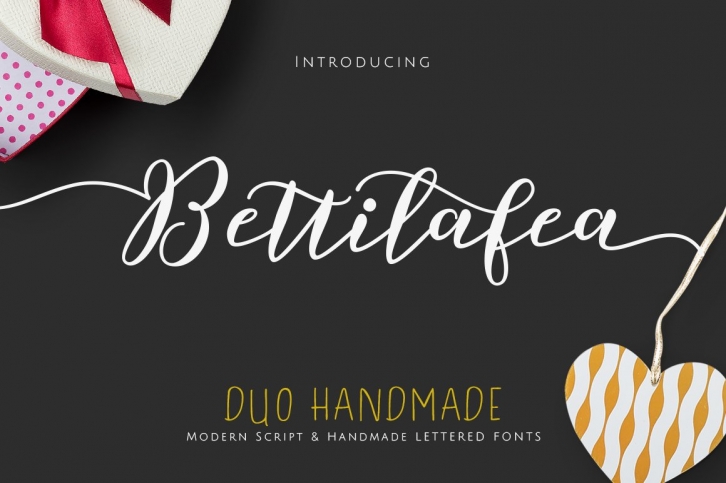
Bettilafea s Duo is a gorgeous font that was realeased on April 17, 2020. The font can be used in many style contexts and design environments. Perfect for invitations, magazines, websites, logos, and more! It was designed by Siwox Studios and the file size is 3.10 MB. Thanks for checking out this font!